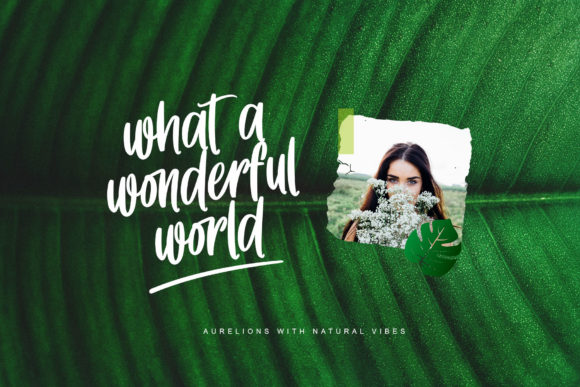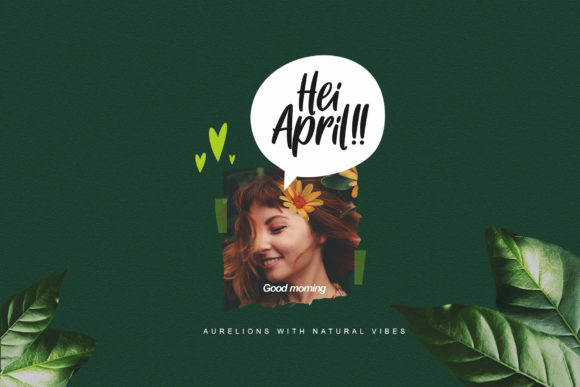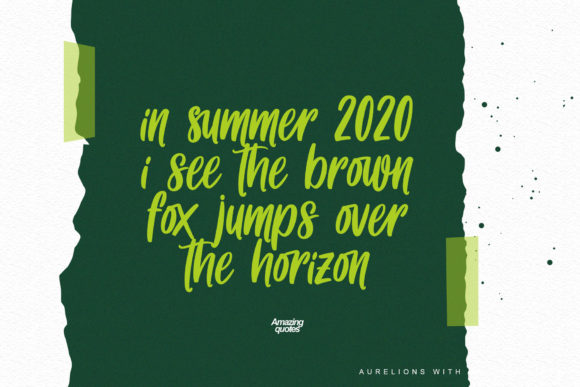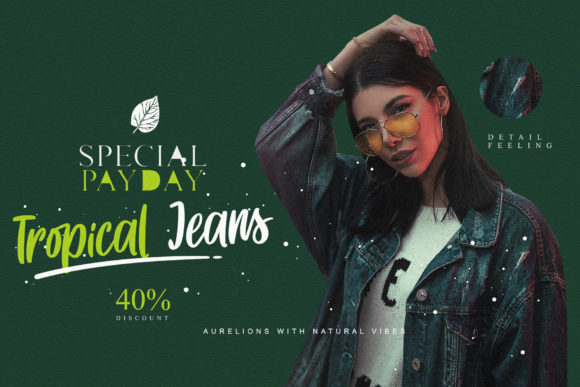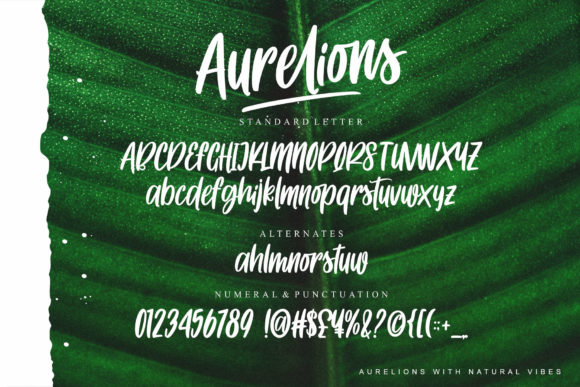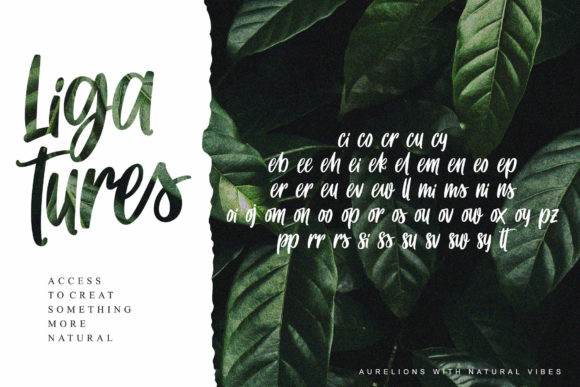
The Elegance of Handwritten Design: Discovering the Aurelions Font
As designers, we’ve all been there – staring at a blank canvas, trying to find the perfect font to bring our vision to life. It’s that moment of serendipity when we stumble upon a font that makes our design sing. For me, that moment came when I discovered the Aurelions Font – a delicate and elegant handwritten font that adds a touch of sophistication to any design.
Aurelions Font is more than just a beautiful font – it’s a masterclass in refined typography. With its unique and intricate lettering, this font is perfect for designers looking to add a personal touch to their work. And with its PUA encoding, accessing all of the glyphs and swashes is a breeze, giving you endless possibilities for customization.
- Unique Characteristics: Aurelions Font features a unique blend of modern and vintage elements, with intricate details and ornate flourishes.
Aurelions Font Review
I recently had the chance to work with Aurelions Font, and here’s my honest take on this stylish script.
- Unique, elegant feel that’s perfect for luxury brands or high-end designs.
- Well-suited for headings and titles, adding a touch of sophistication.
- Wide range of language support, making it a versatile choice for international projects.
- High-quality vector files ensure crisp and clean rendering, even at larger sizes.
- Some characters may appear overly stylized, which could make readability a concern in certain contexts.
- Lack of a clear, distinctively bold weight might limit its use in situations where a strong, bold font is required.
- Not ideal for body text, as it can feel overwhelming when used for large amounts of content.
Aurelions Font is a beautiful script that shines in the right situations – when used for headings, titles, or as an accent font. While it has some limitations, its unique charm and high-quality rendering make it a great addition to any designer’s toolkit.
Aurelions Font is a versatile font that can be used in a variety of design contexts.
Use it for headings, titles, and other text elements where you want to add a touch of elegance and sophistication.
Common Use Cases for Aurelions Font
Aurelions Font is commonly used in:
Marketing materials, such as brochures